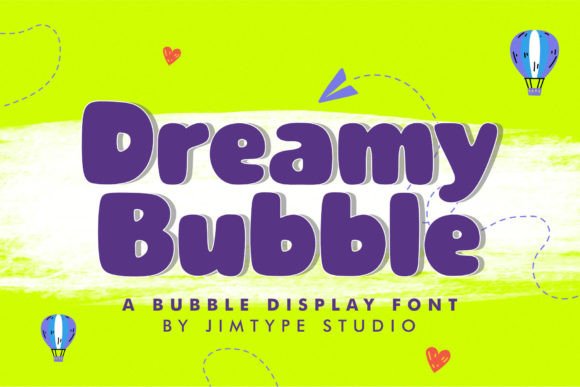
Introducing the enchanting 'Dreamy Bubble' Font, where whimsy meets creativity! This captivating and playful font, brought to you by jimtypestudio, is a must-have for any designer looking to infuse their projects with a sprinkle of magic. Perfectly suited for kids' projects, 'Dreamy Bubble' Font will transport your audience to a whimsical world of wonder.
With its unique and eye-catching design, 'Dreamy Bubble' Font is the secret ingredient that will elevate your designs to new heights. Its bubbly and cheerful appearance adds a touch of joy and excitement, making it the best font for love-themed projects. Let your imagination take flight on a cloud of bubbles as you create captivating visuals that will leave your audience in awe.
Not only does 'Dreamy Bubble' Font bring a sense of playfulness to your designs, but it also offers versatility and functionality. It seamlessly blends into a variety of design styles, making it suitable for a wide range of projects. Whether you're working on posters, invitations, or children's book illustrations, this font will add a delightful charm to your creations.
As you explore our font collection, you'll discover the endless possibilities that 'Dreamy Bubble' Font has to offer. Its whimsical nature will spark your creativity and inspire you to think outside the box. Let your designs come to life with the help of this captivating font, and watch as your audience is captivated by the magic it brings.
Incorporating 'Dreamy Bubble' Font into your designs is like adding a burst of creativity to your visual storytelling. It's the perfect tool to create a world of wonder and imagination, especially for projects aimed at capturing the hearts of children. From fairy tales to birthday invitations, this font will make your creations stand out and leave a lasting impression.